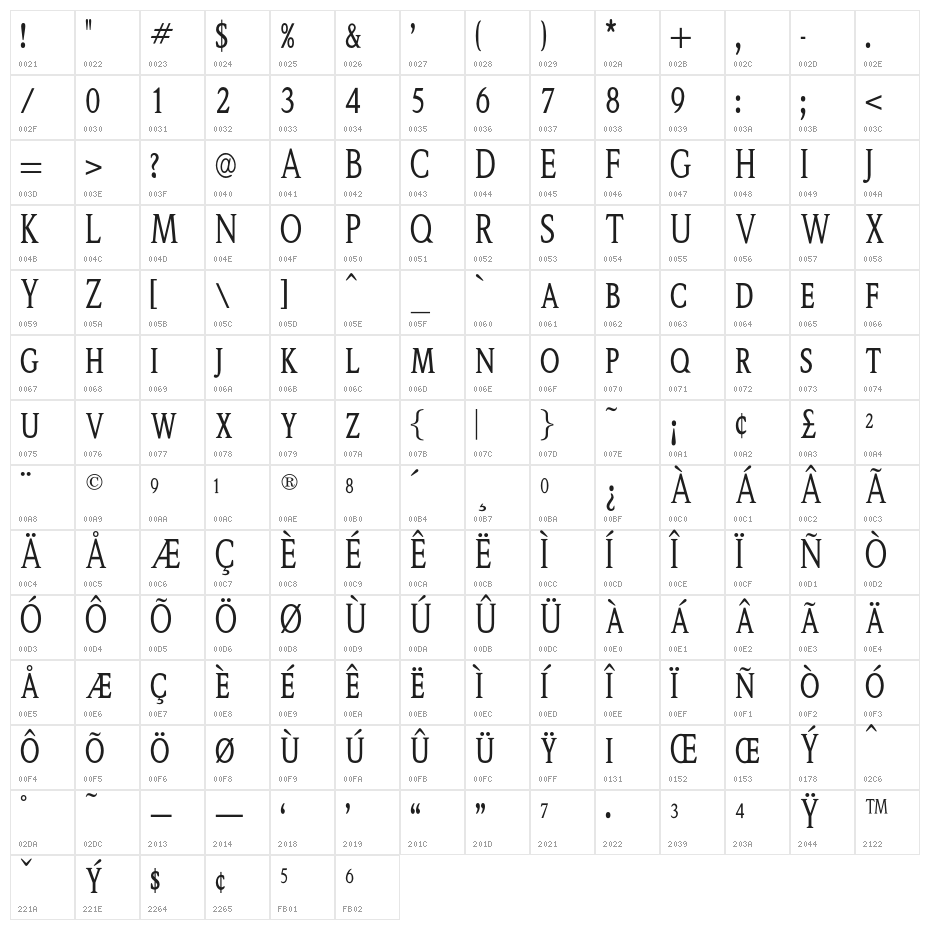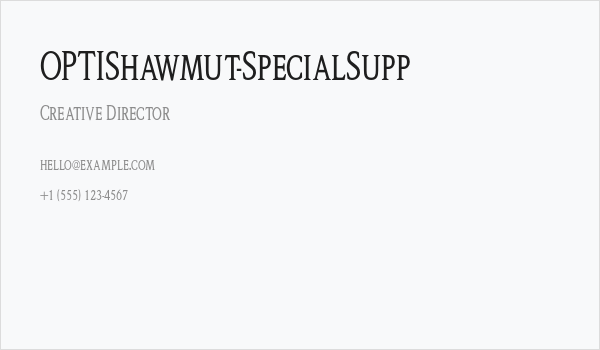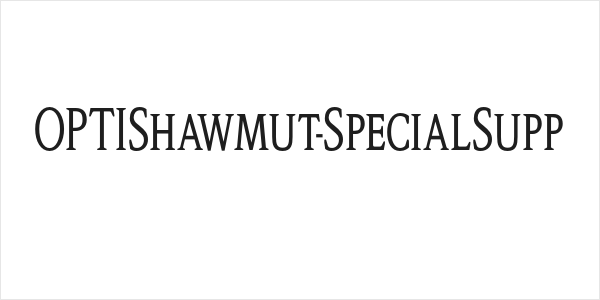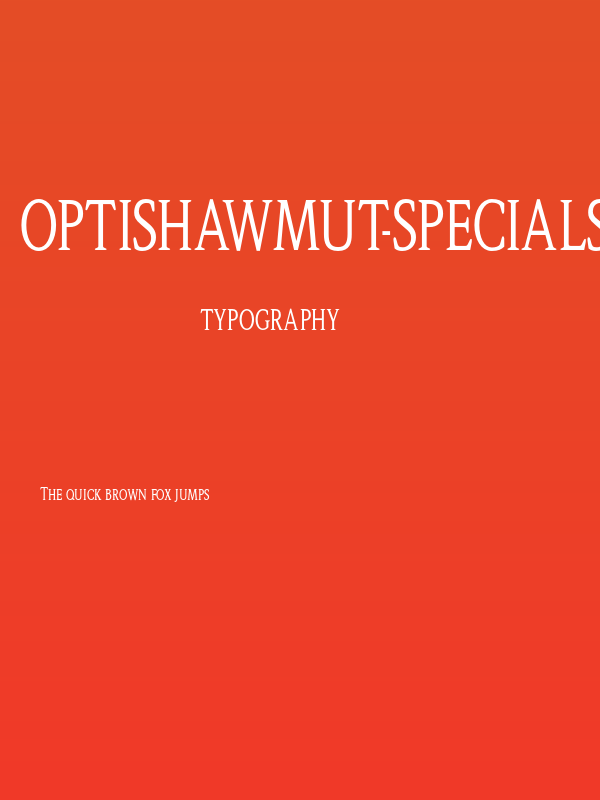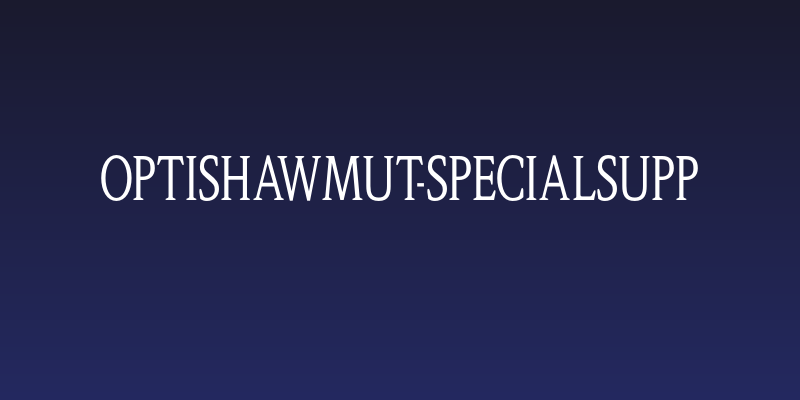
OPTIShawmut-SpecialSupp Font
OPTIShawmut-SpecialSupp Description
This font features a classic serif style with elegant and refined strokes. The characters are well-proportioned, with a slight contrast in thickness that adds sophistication without compromising readability. The uppercase letters are stately and commanding, while the lowercase letters maintain a balanced and harmonious appearance. The numerals are clear and distinct, making them suitable for both formal and informal contexts. Special characters are thoughtfully designed, ensuring consistency across the entire typeface. This font exudes a timeless quality, making it versatile for various design applications.
| Proposed Projects | Ideal for book covers, formal invitations, branding, and editorial design. |